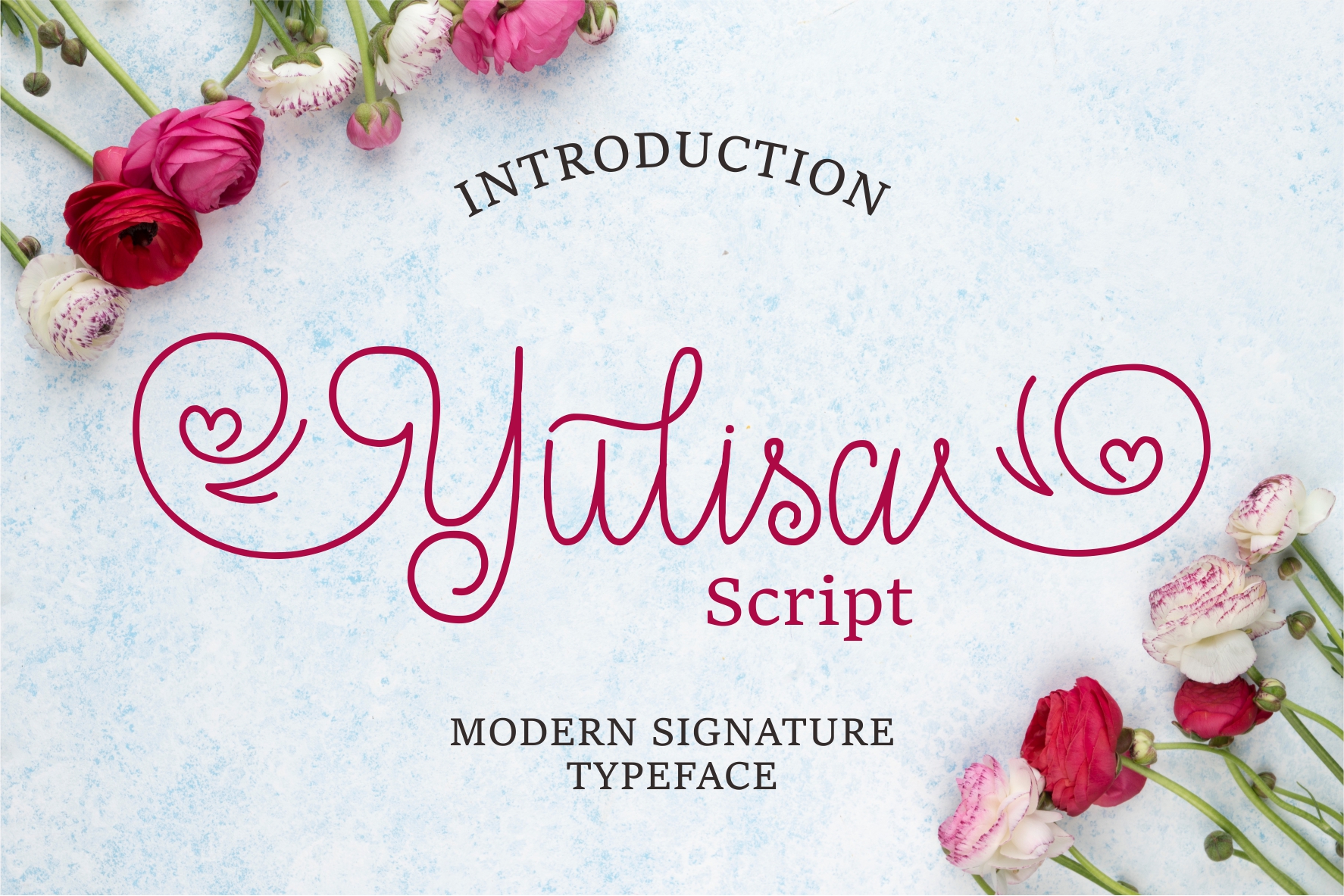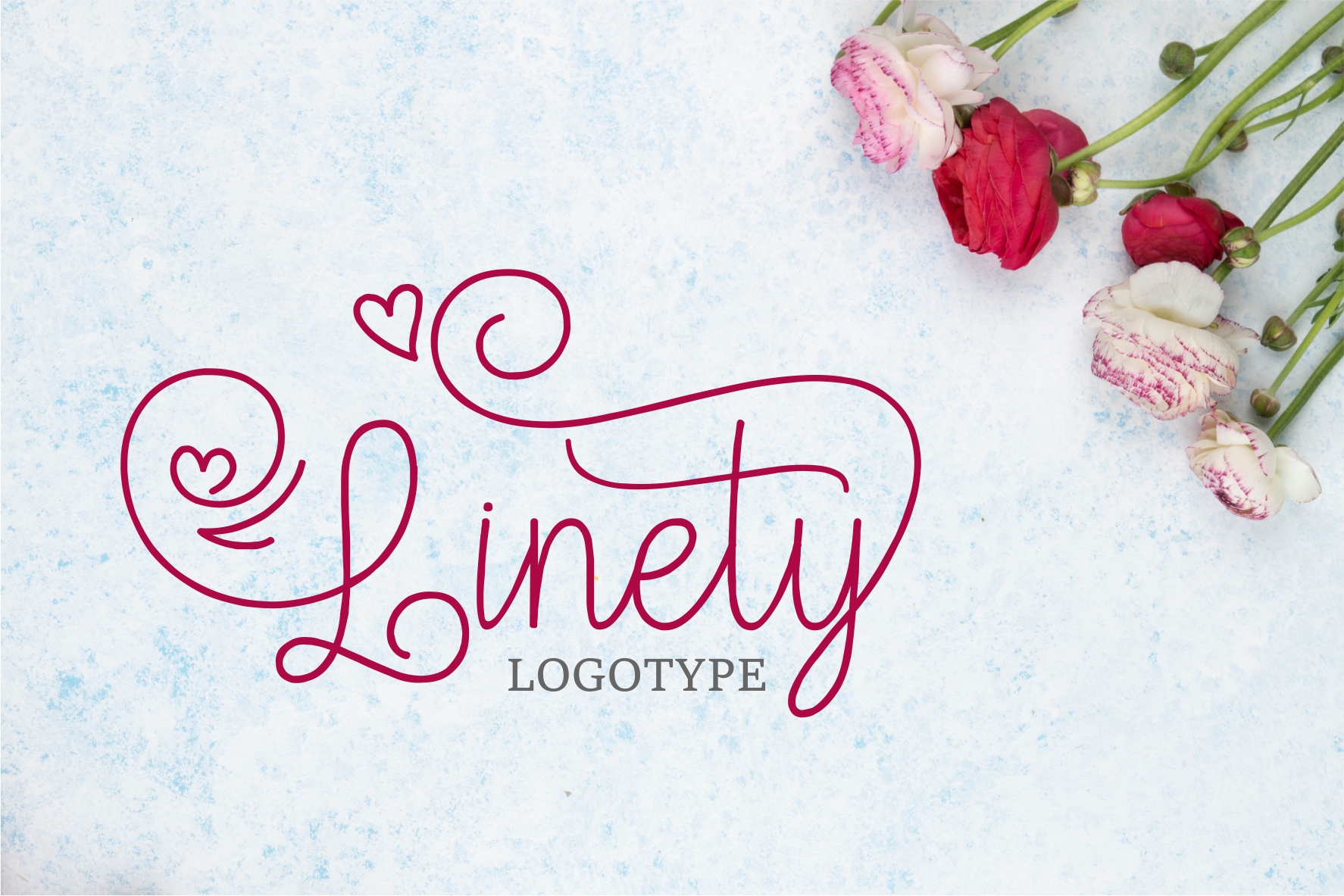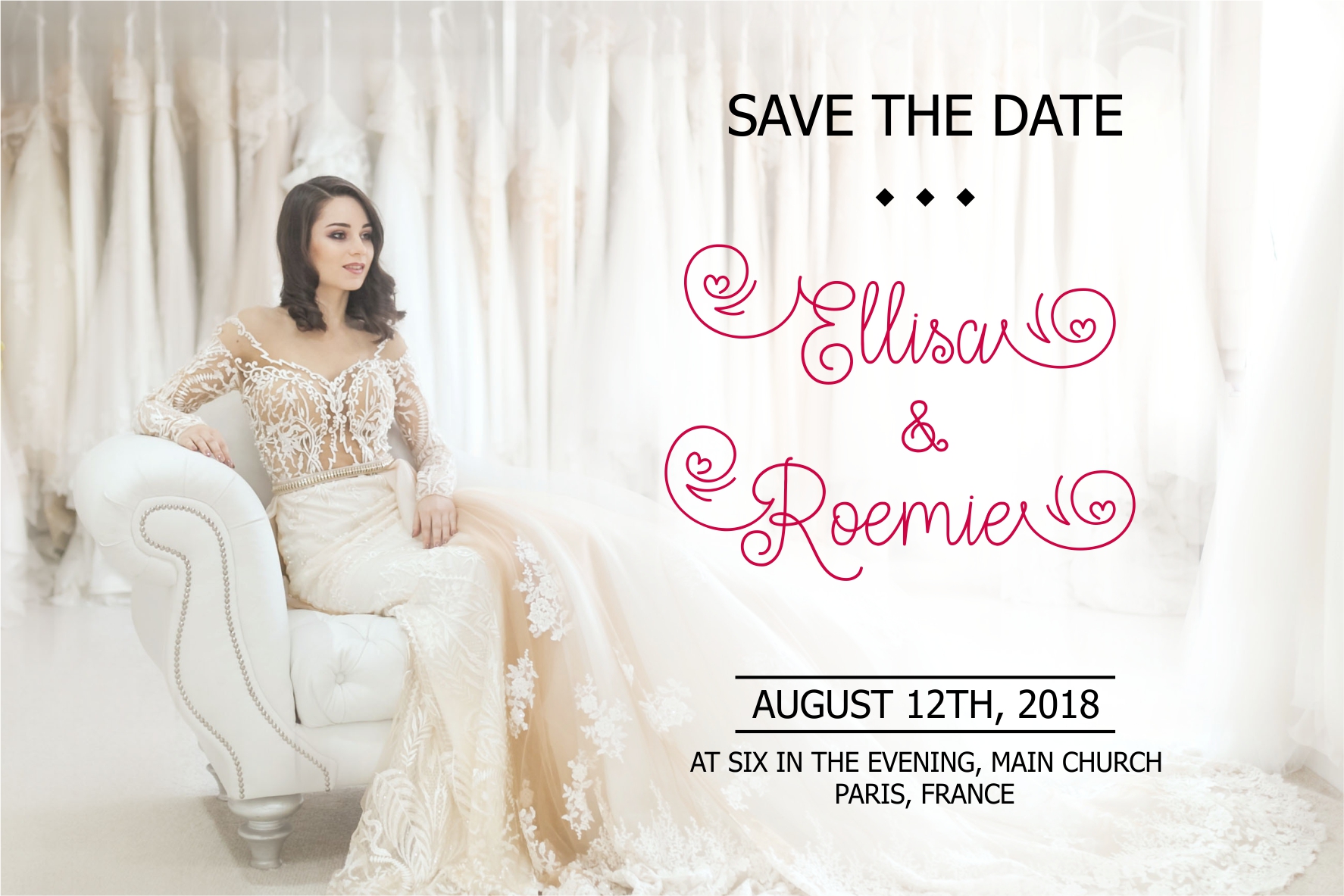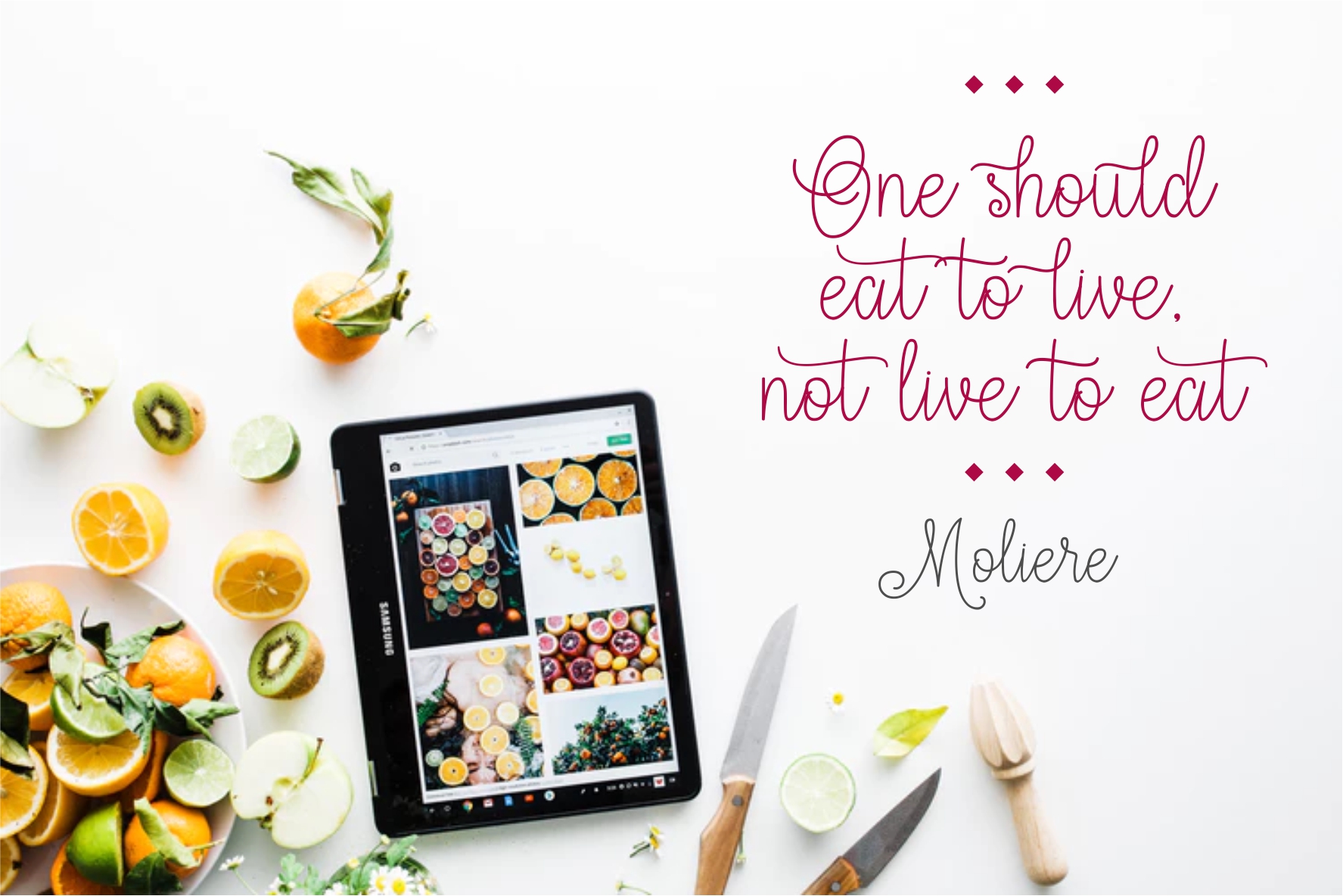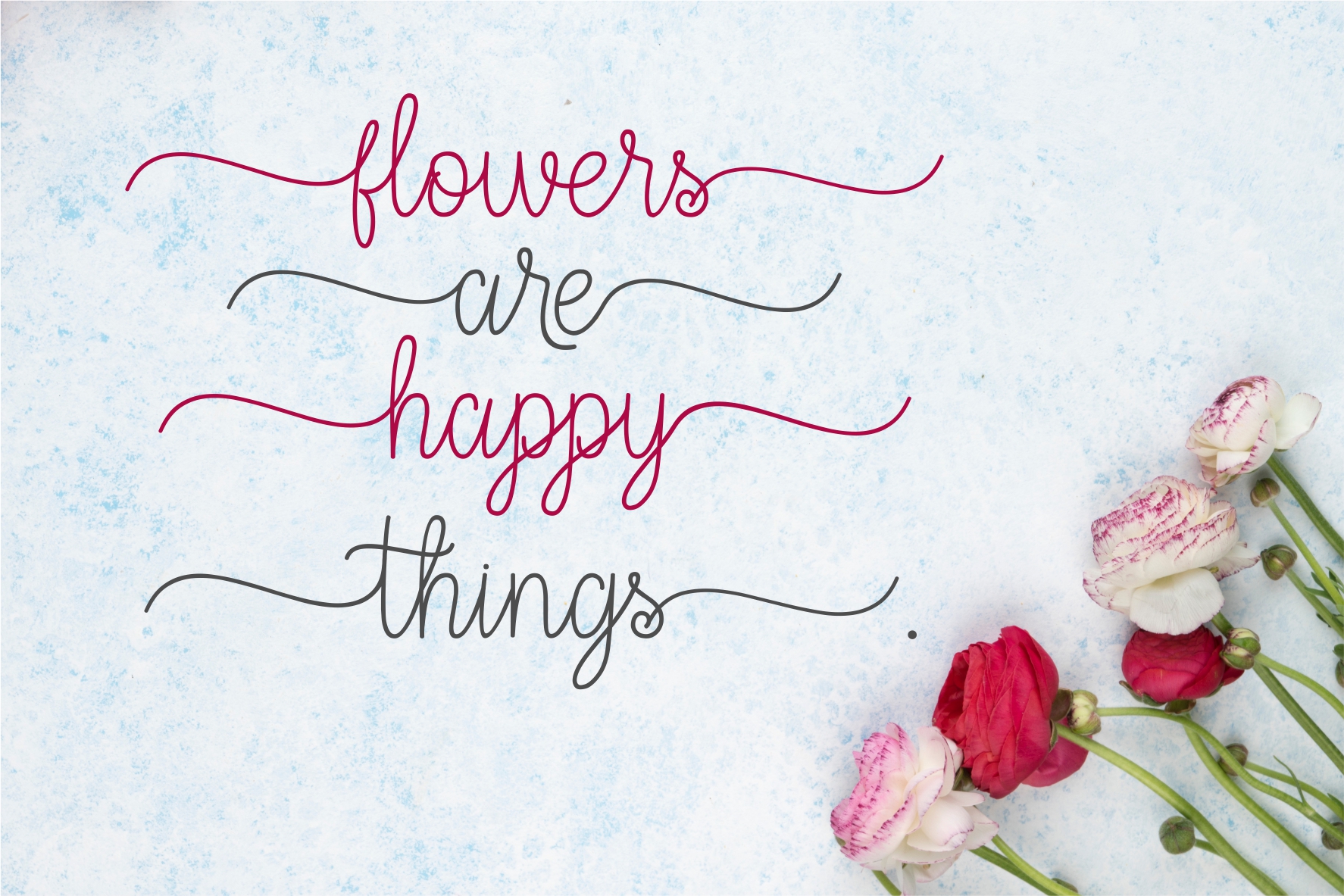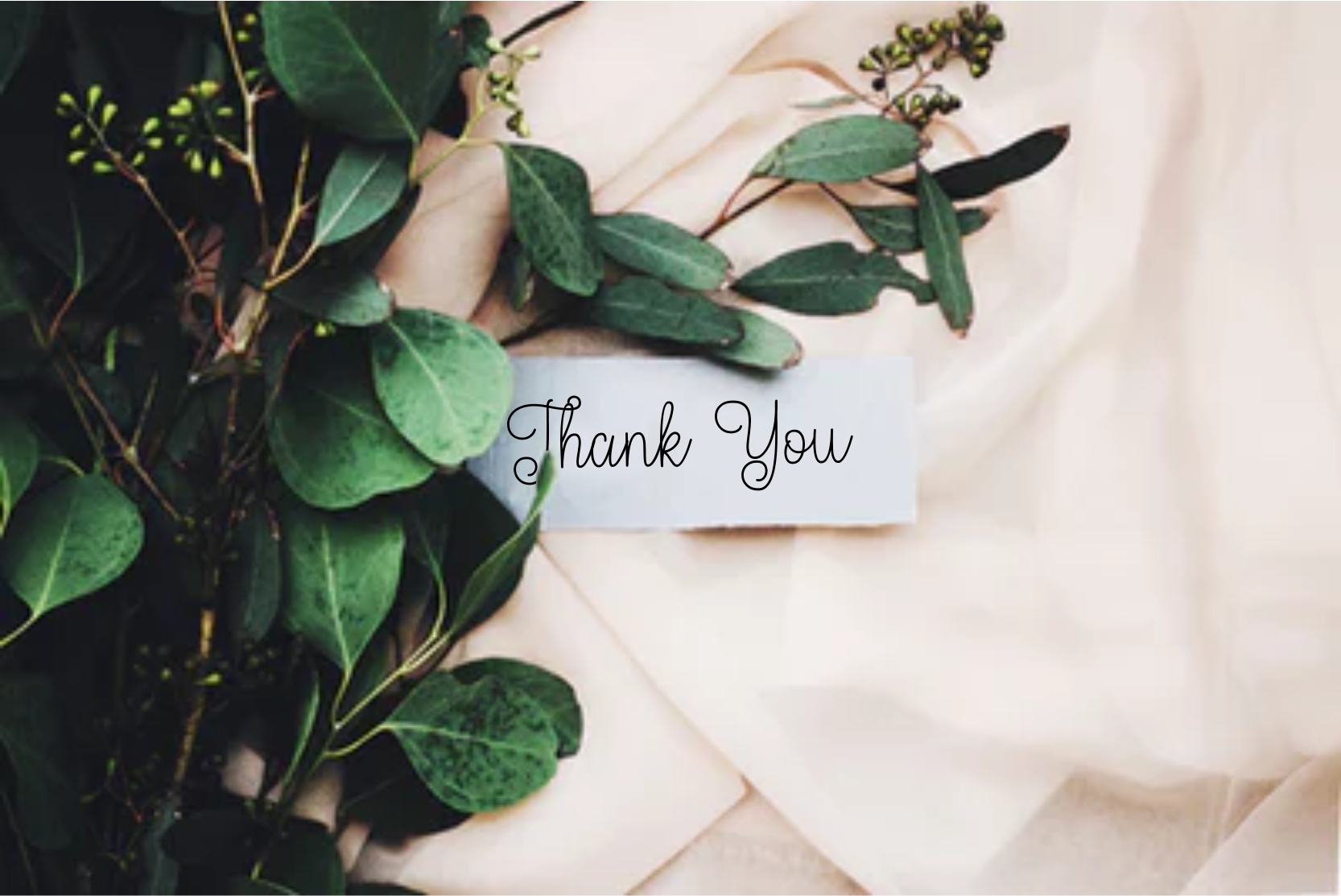
Yulisa Font
About Yulisa Font
Yulisa Script is a modern, feminine font with a luxurious feel. This font displays alternative characters and is suitable for feminine themed designs and creative projects.